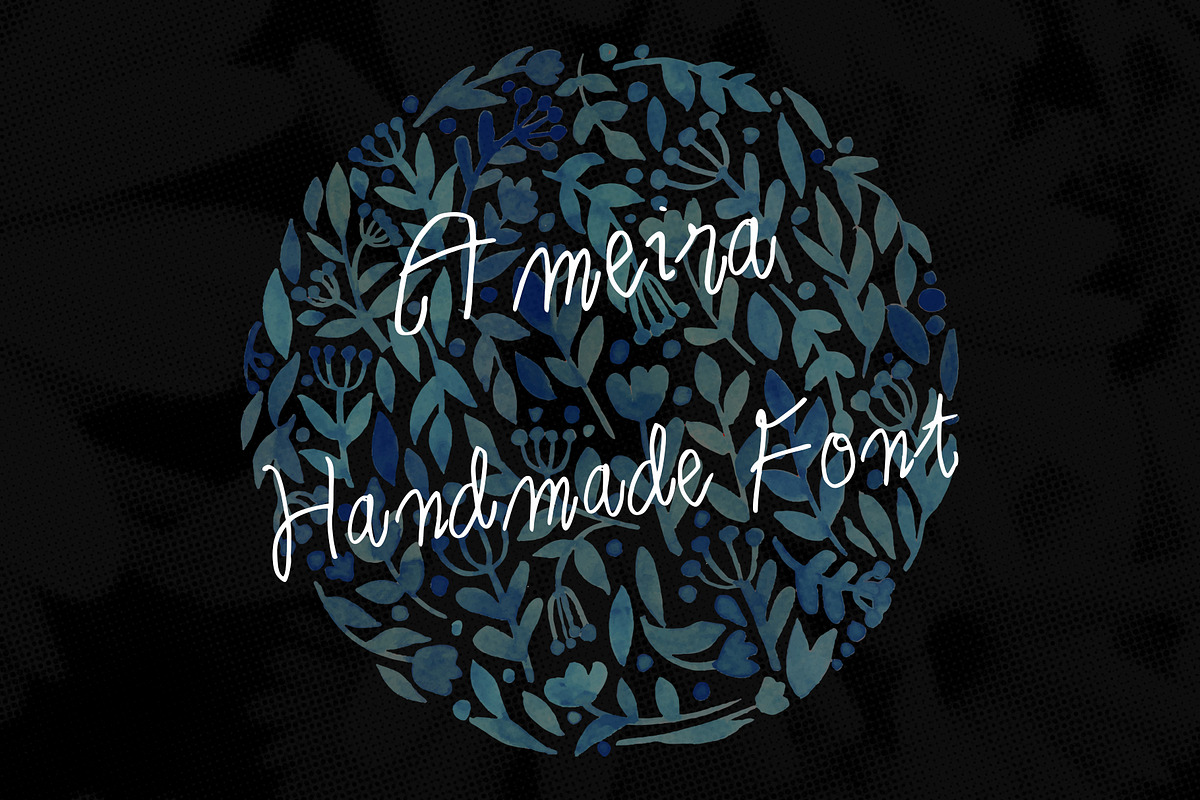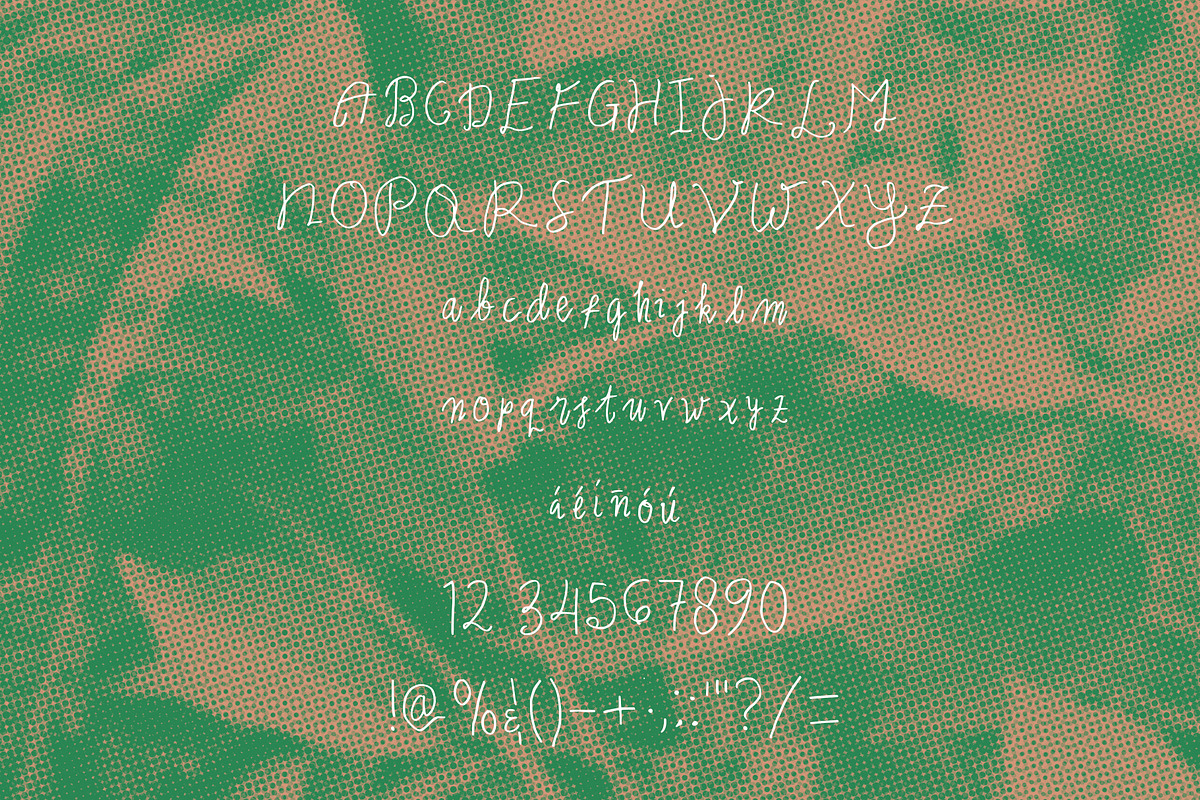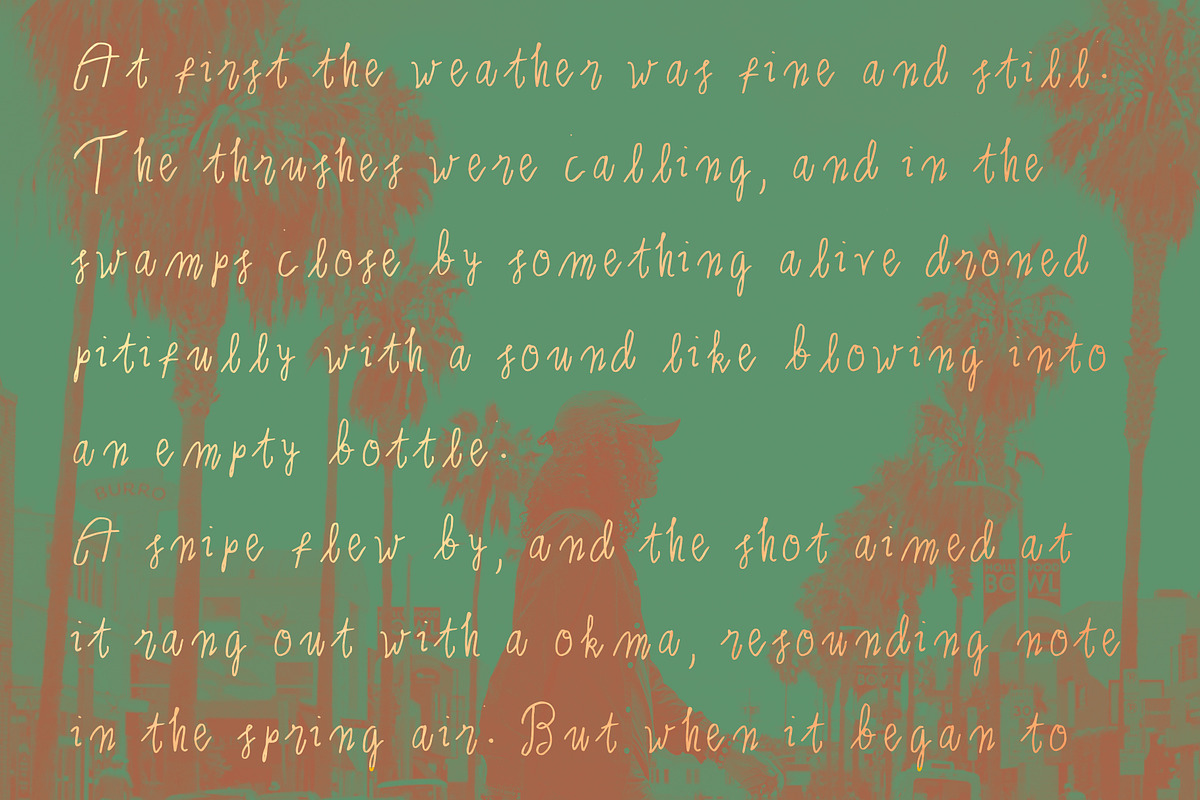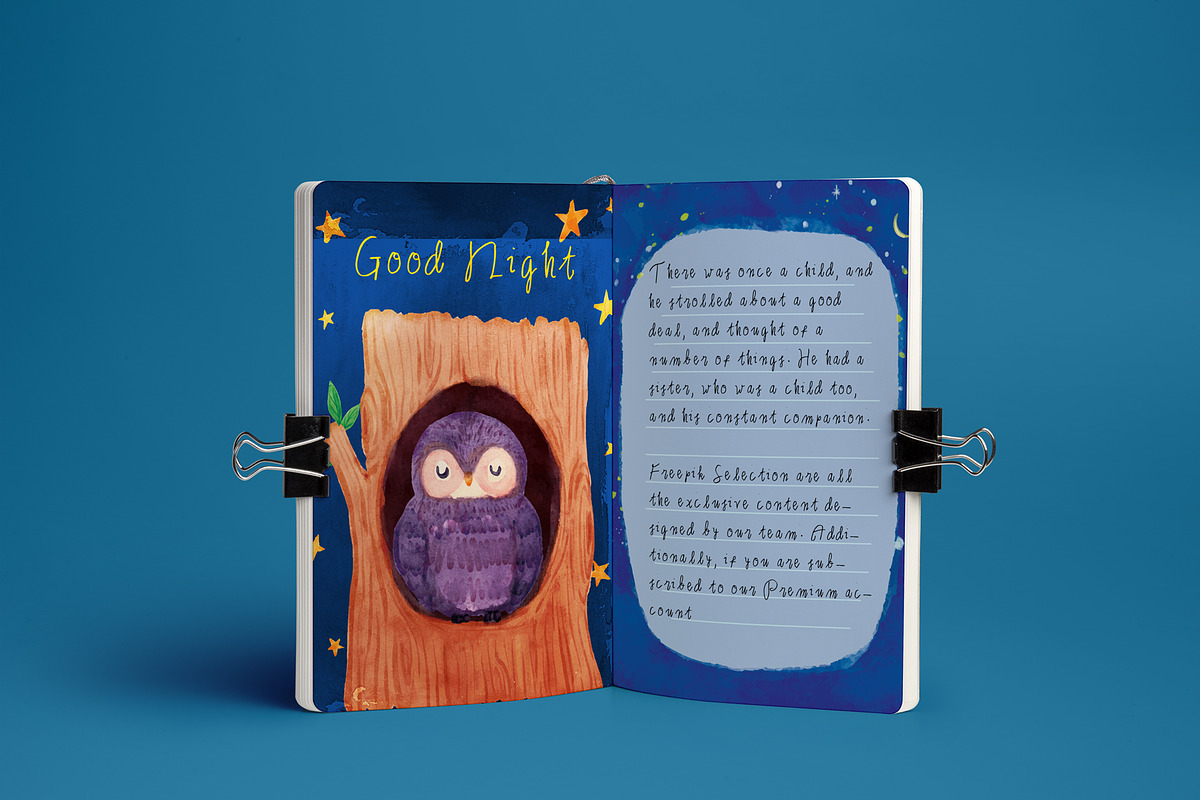
Ameira hand drawn font
Script hand-drawn display font called Ameira was designed for boutique and feminine style also fit for Kids story and book.
Why Ameira hand drawn font is worth a look
Ameira hand drawn font by NadaNora fits naturally into Branding, posters, packaging, typography.